2 Google Fonts Similar to Franklin Gothic
Franklin Gothic is a sans-serif font from the early 20th century. It is used as an inspiration for many American gothic typefaces. Still to this day, it is a popular font to use.
However, finding a similar lookalike on Google Fonts was a little bit of a challenge. Franklin Gothic has some pretty unique characteristics that make it hard to match.
So here are two fonts that I think would make for ok alternatives if you use a heavier weight.
What Google Fonts are Similar to Franklin Gothic?
The most similar looking fonts to Franklin Gothic from Google Fonts are:
- Libre Franklin
- Source Sans Pro
Either one of these fonts would make for an ok alternative.
So let's cover some of their differences and similarities.
Libre Franklin
If you use Libre Franklin with a heavier weight, then it closely resembles Franklin Gothic. It does a great job at matching the lowercase "g" and "y". Along with close the rest of the lowercase letters.
If you pay close attention, you will notice a minor difference in the uppercase "Q". Overall it makes for a solid alternative.
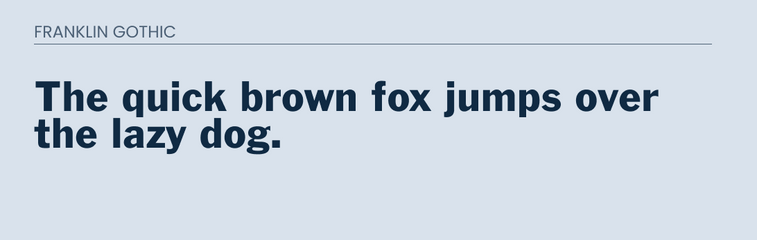
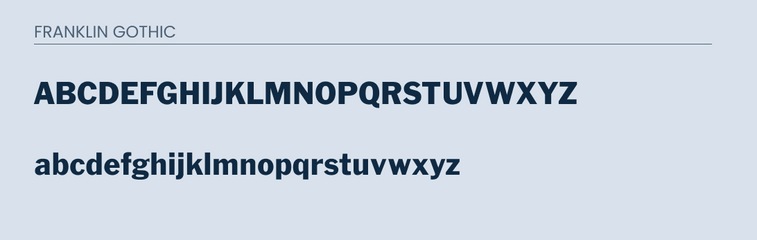
Source Sans Pro
Source Sans Pro is also another good alternative. It also makes a good attempt to match the lowercase "g". I would argue that it is close to a 90% match in lowercase except for the lowercase "l".
In the uppercase you will also find many similarities, but the "Q" is really what going to draw the most attention as far as differences go.
Compare below.
Final Thoughts
Overall, Libre Franklin will be your best bet when trying to find a similar font to Franklin Gothic. If you use a heavier weight, then you can achieve a similar look and feel. Nothing will actually replace the font itself though. So if you are in a position to do so, I recommend purchasing the font from the creator.